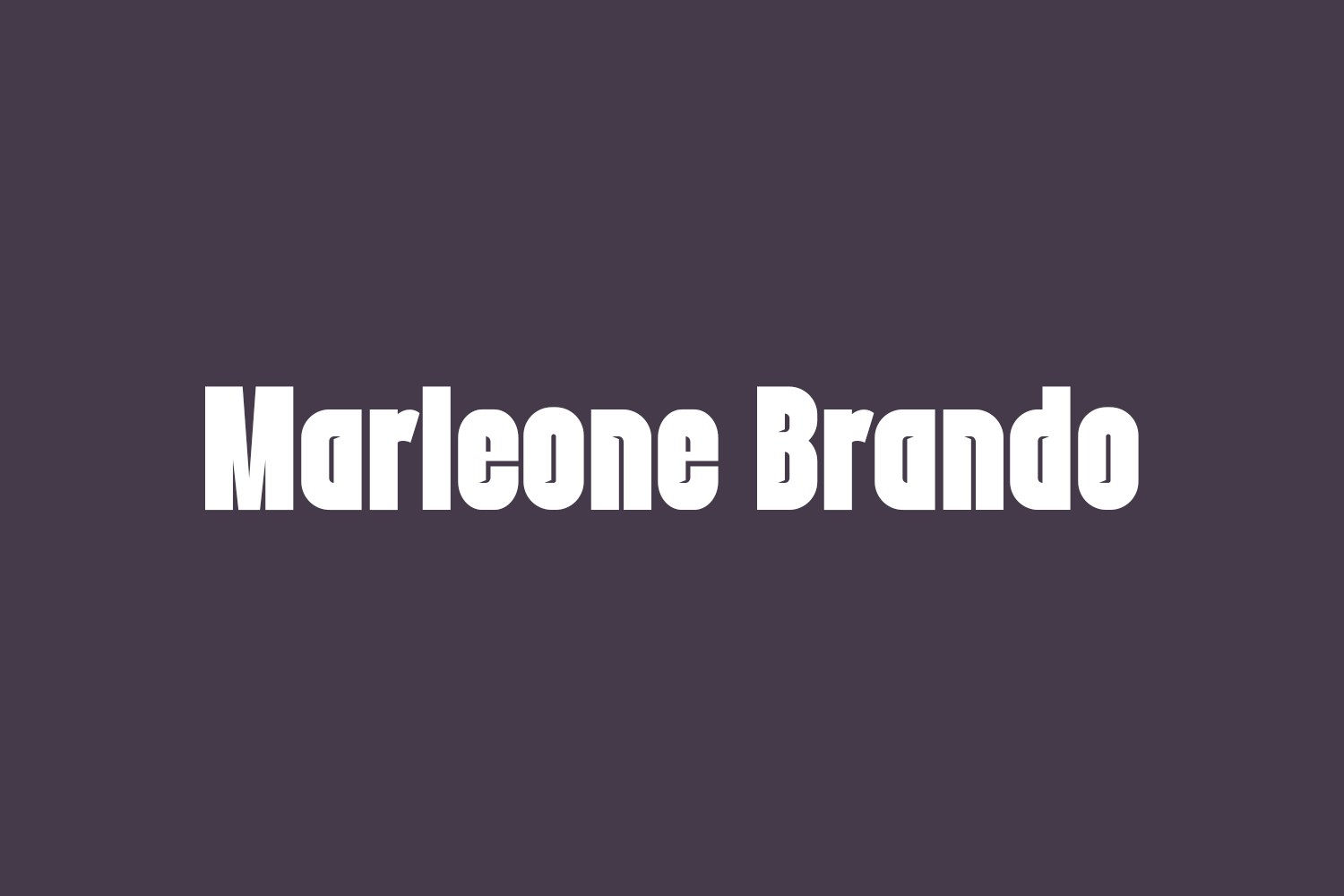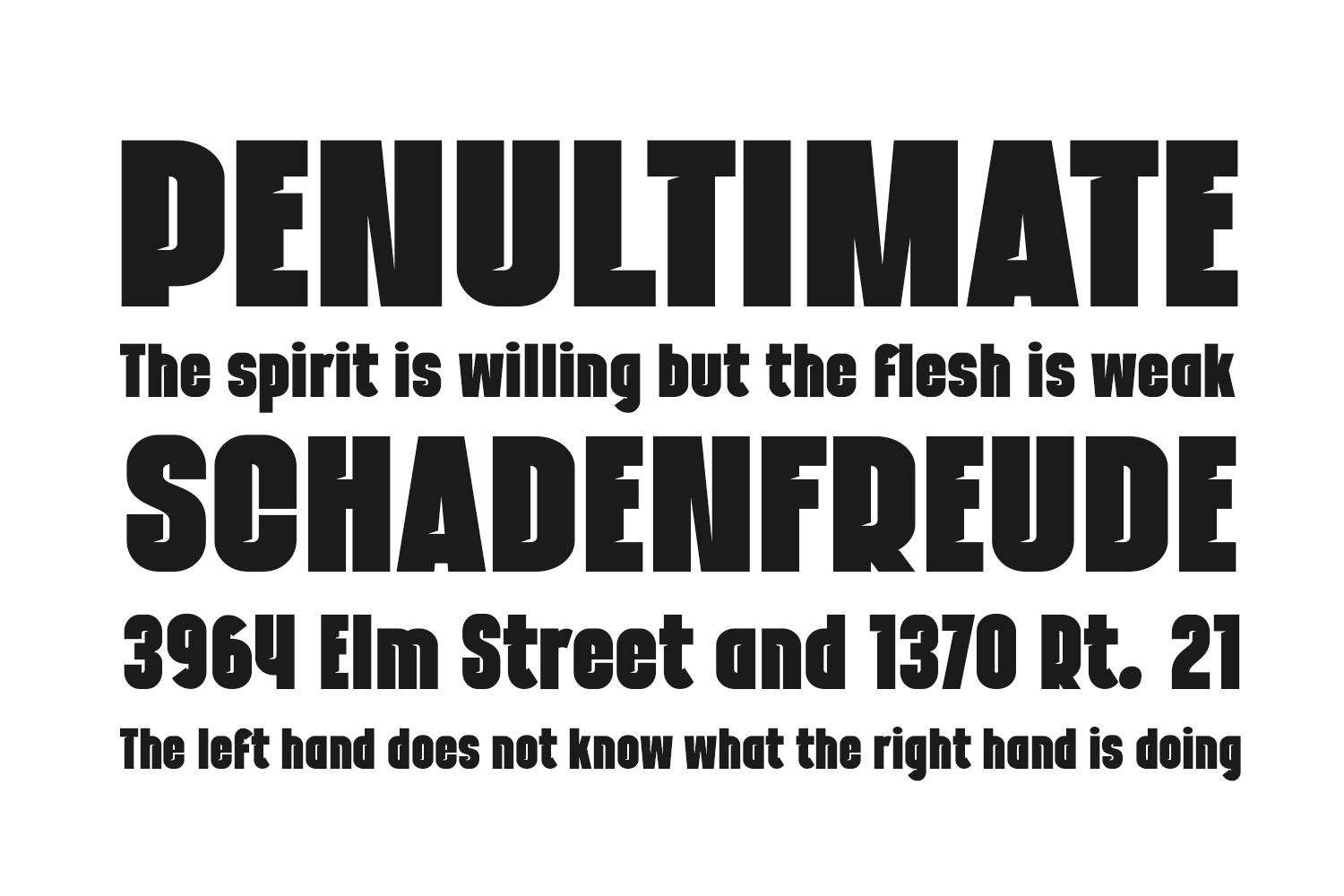
Marleone Brando is a modern and minimalist sans-serif typeface designed by Ikiiko Type to bring clean elegance and structured clarity to your creative projects. With its geometric lines, condensed form, and balanced proportions, this free decorative font works perfectly for crafting sleek logos, magazine headers, digital interfaces, brand kits, and more. Available in OTF format — ideal for designers seeking a professional, readable font that enhances legibility without overpowering your layout.
Why Choose Marleone Brando?
- Clean & Geometric Style: Combines simplicity with precision for a contemporary, functional appearance.
- Ideal for UI & Editorial Design: Perfect for websites, app typography, or blog headers needing a crisp, modern look.
Where to Use Marleone Brando?
Marleone Brando shines across a variety of design applications:
- Logos & Brand Identity: Adds sophistication to brand identities for startups, lifestyle blogs, or minimalist studios needing a clean tone.
- Digital Interfaces: Ideal for web headers, landing page buttons, or mobile app text where clear communication is essential.
- Poster & Billboard Design: Designed for visibility — makes headlines pop in outdoor advertising.
- Social Media Graphics: Enhances Instagram Stories, TikTok overlays, and YouTube banners with a bold sans-serif presence.
- Editorial Headers: Stands out in blog titles, magazine covers, and banners with a crisp, stylish charm.
Design Tips with Marleone Brando
- Glyphs: 69 glyphs including uppercase (A-Z), numerals, punctuation, and basic Latin characters.
- Language Support: English, Spanish, French, German.